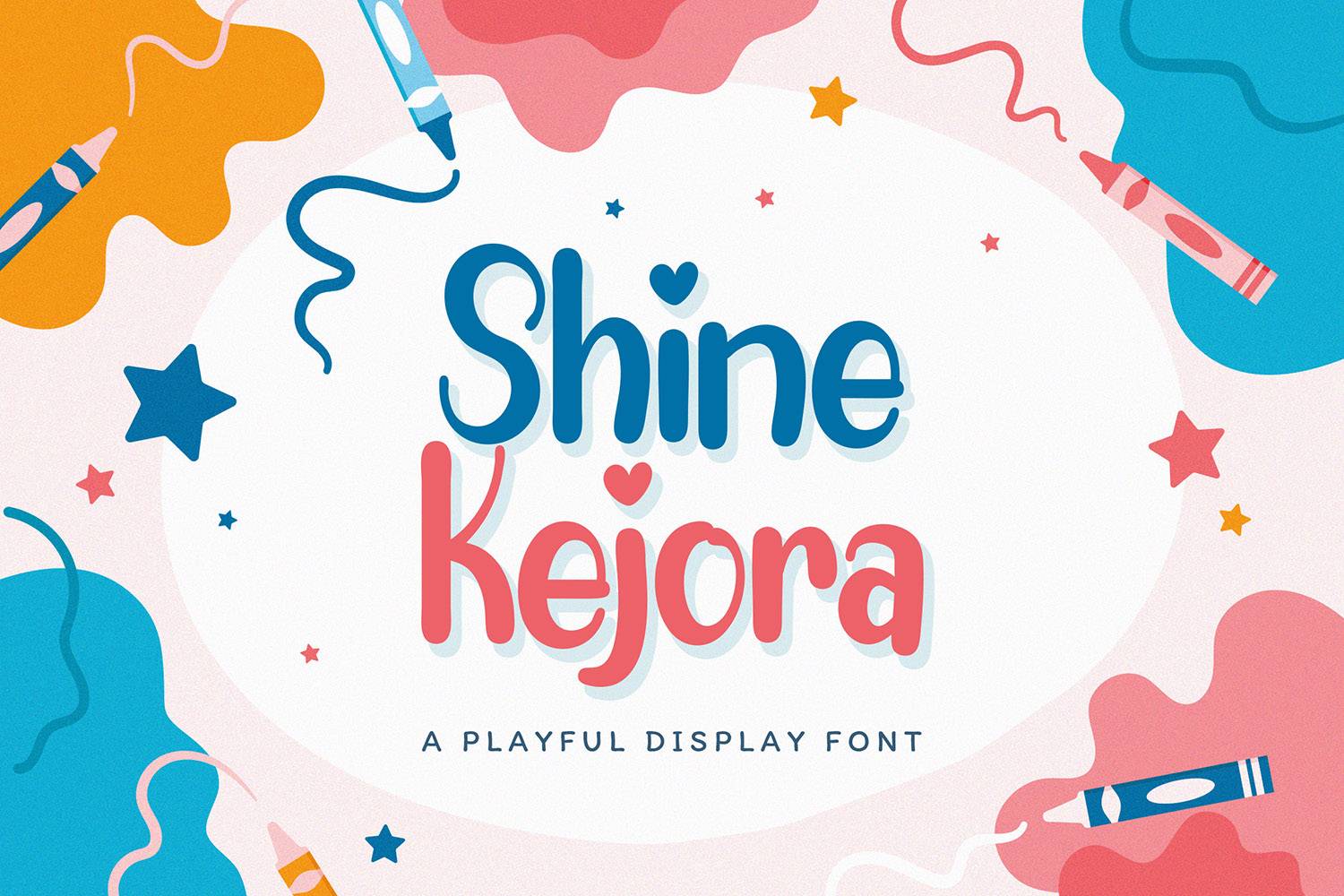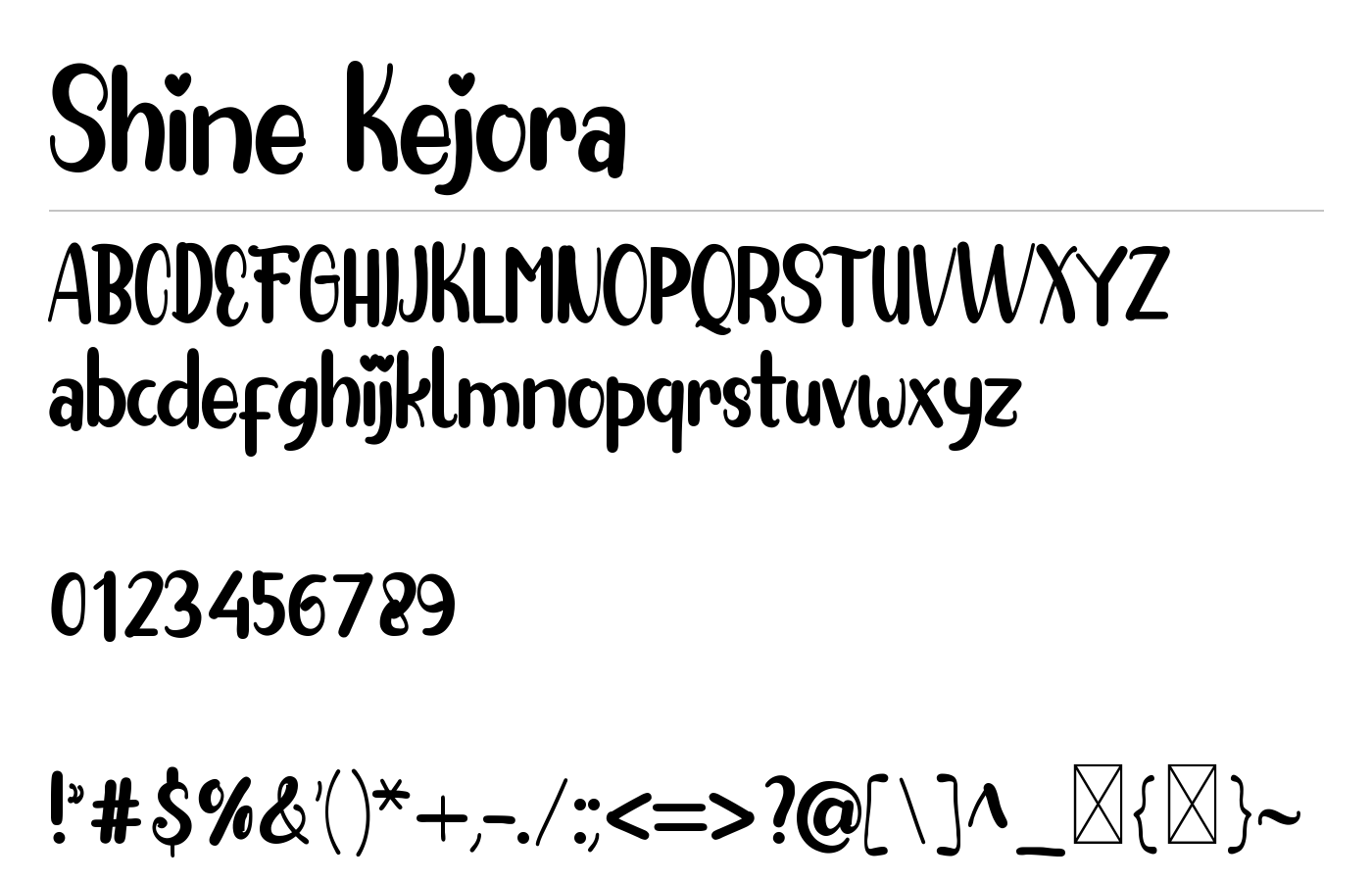
Shine Kejora is a playful sans serif font with a whimsical, hand-drawn feel, featuring tall, narrow letterforms and unique quirky details like heart-shaped dots on the "i" and "j." Its moderately bold weight and uneven strokes create a lively and friendly personality, making it perfect for creative, casual, or youthful branding, invitations, and children’s designs where a touch of charm and fun is desired. This font works best in headlines or short text where its distinctive style can shine and capture attention.
Shine Kejora Font
About Shine Kejora Font